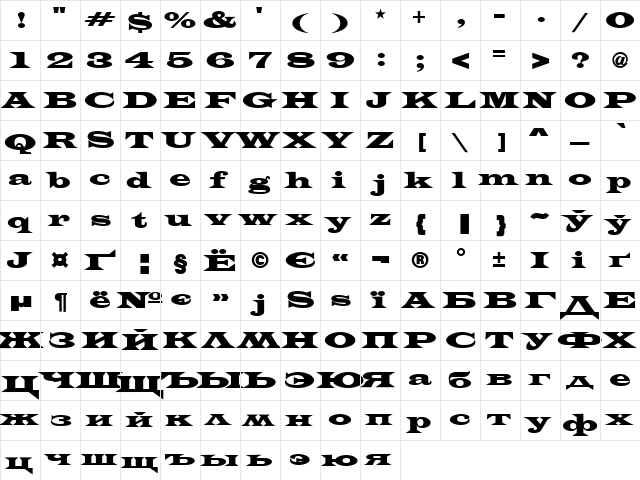
AZLatinWideCTT Regular
Design Context for AZLatinWideCTT Typeface
AZLatinWideCTT is a composed and adaptable typeface that performs quietly and consistently across a wide range of design contexts.